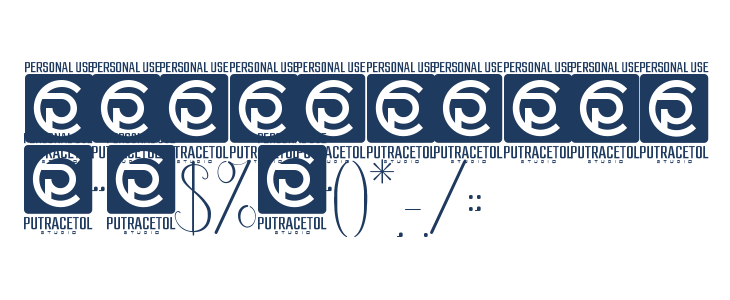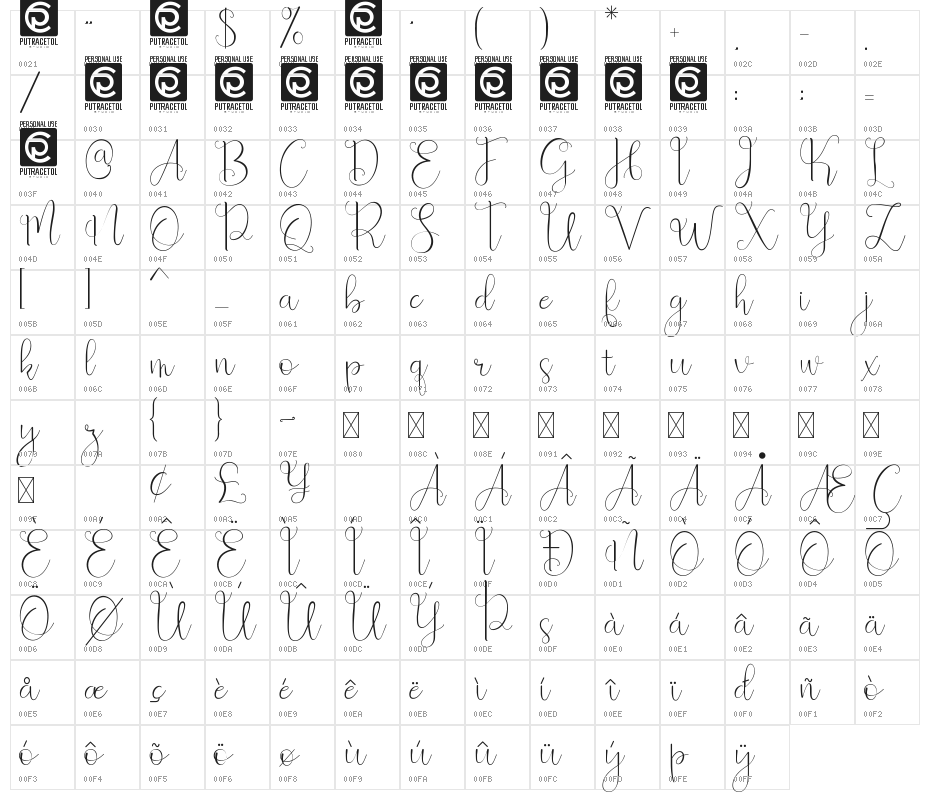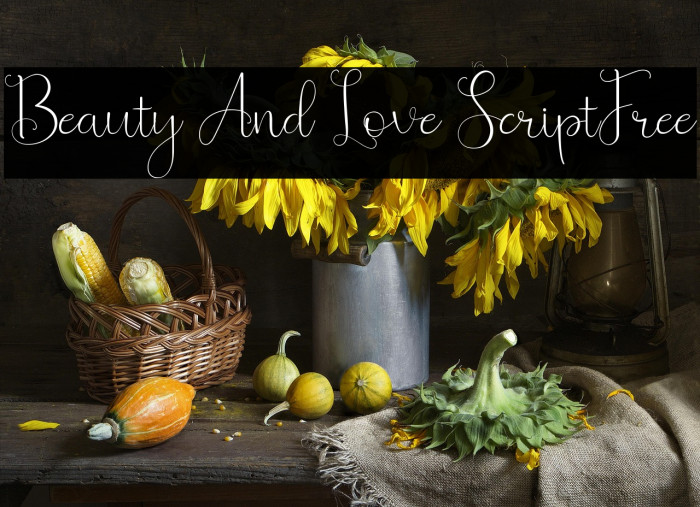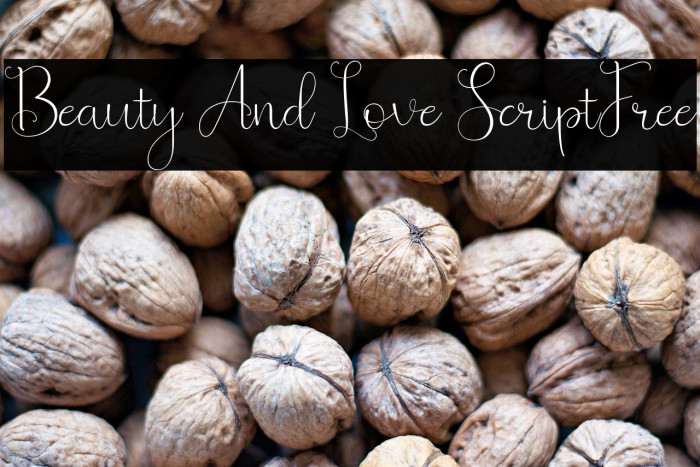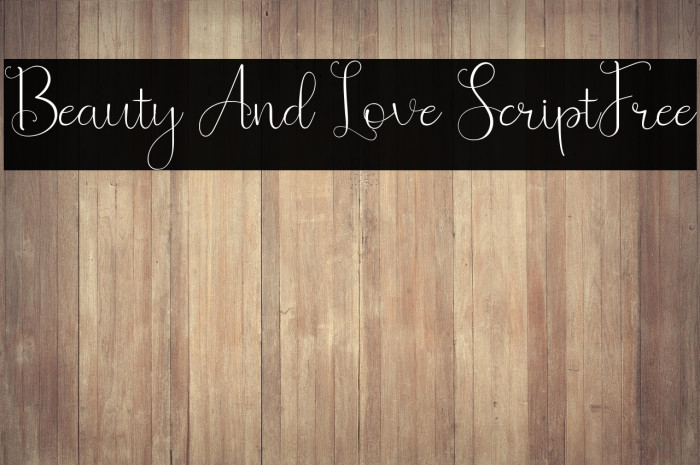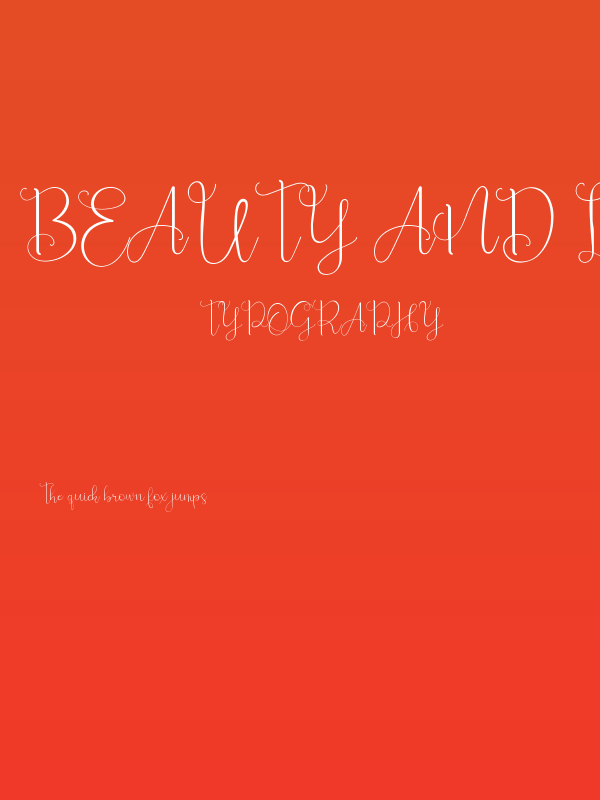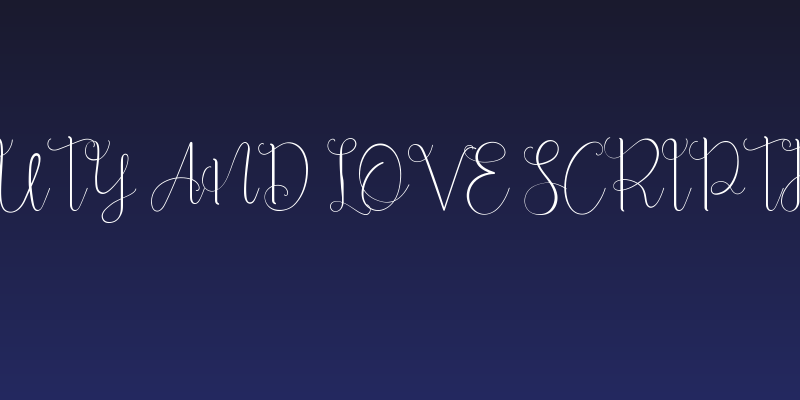
Beauty And Love ScriptFree Font
Beauty And Love ScriptFree Description
This elegant script font features a flowing, cursive style with intricate loops and swirls, giving it a romantic and sophisticated appearance. The uppercase letters are tall and slender, with delicate flourishes that add a touch of whimsy. The lowercase letters maintain a consistent flow, connecting smoothly to create a harmonious look. The numerals and special characters are designed with the same graceful curves, ensuring a cohesive aesthetic throughout. This font is ideal for projects that require a touch of elegance and charm, such as wedding invitations, greeting cards, and branding materials.
| Overall Style | Romantic |
| Use Case | Headlines, Invitations, Logos |
| Proposed Projects | Ideal for wedding invitations, greeting cards, branding, and elegant stationery. |